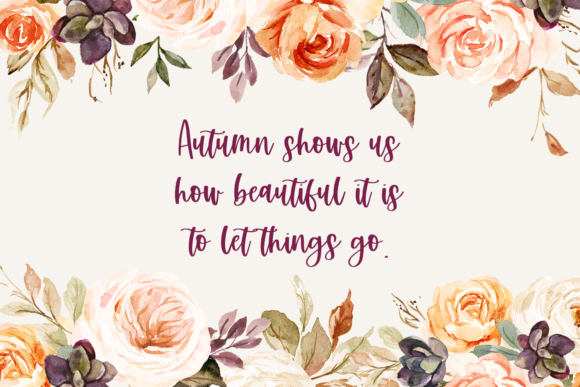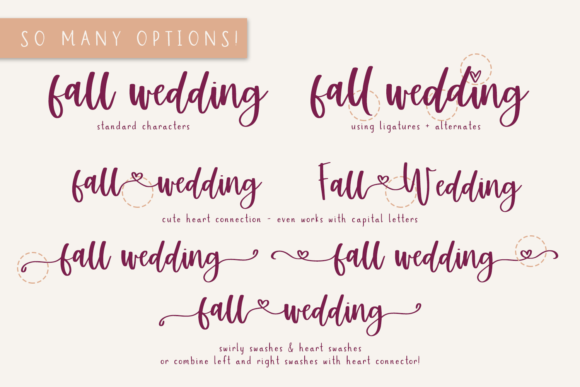
Autumn Love Duo Font
db-ku.com - Script & Handwritten -- Autumn Love Duo font is a match made in heaven! It combines a sweet and bouncy script with a handwriting-style sans font. it includes amazing swashes & hearts! It will add a romantic touch to your projects!